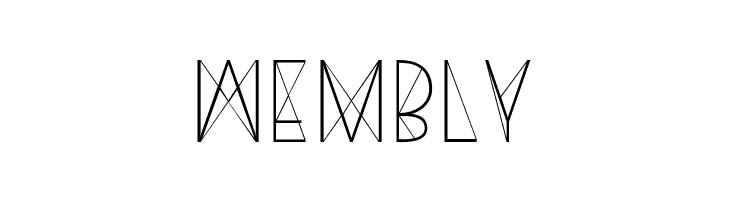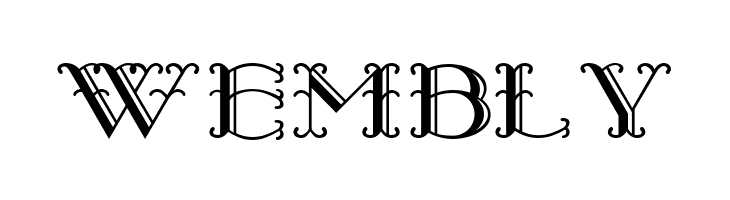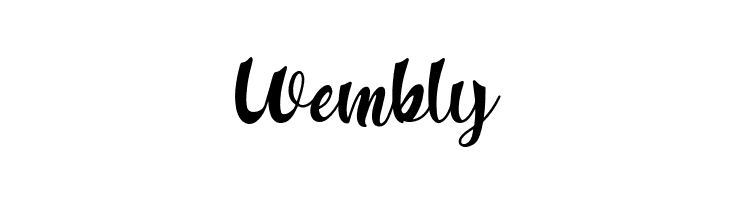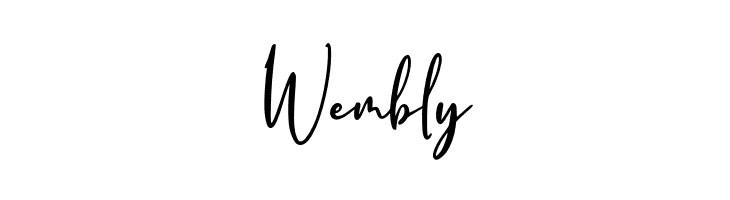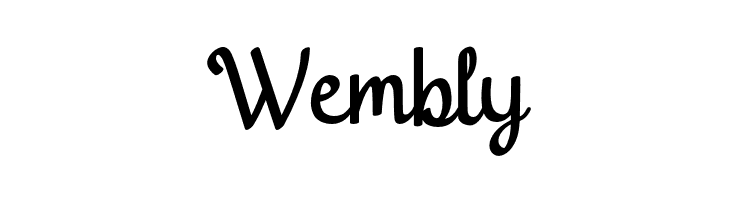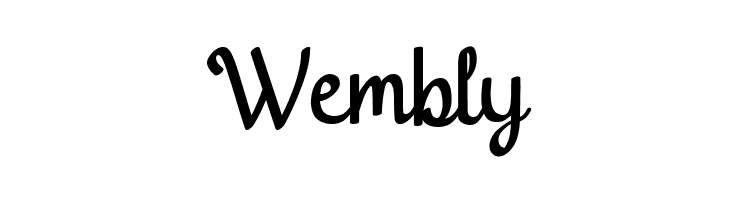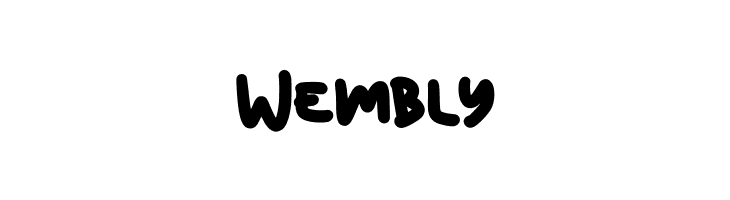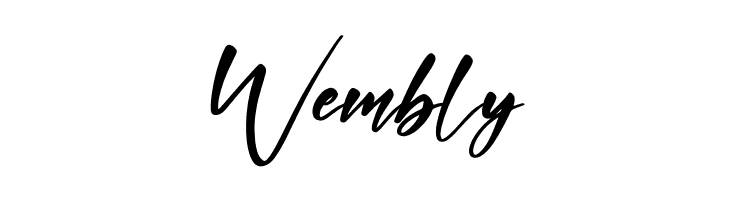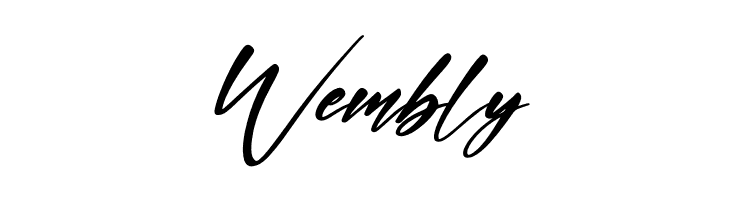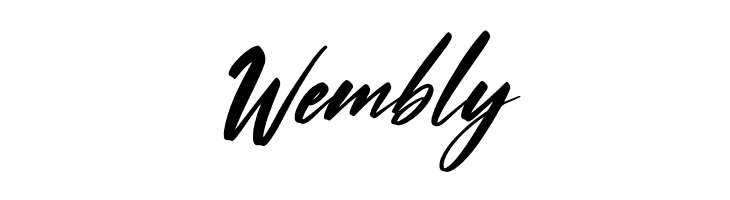
H Fonts
Hartford Font
An elegant, high-contrast script font with flowing, cursive letters.
Hartford Font
Burntilldead
A graceful script font with flowing, interconnected letters.
Hartin2 Regular Font
Font by David Rakowski
A distressed serif font with a grunge, textured appearance.
Harting Plain Font
Font by David Rakowski
A distressed, grunge-style font with a textured, vintage appearance.
Hartman & Richard Font
A bold, cursive handwritten font with dynamic and expressive letterforms.
Hartman & Richard Italic Font
A dynamic and elegant script font with a fluid, cursive style.
Hartman Smith Font
A dynamic, cursive script font with bold strokes and fluid connections.
Hartman Smith Italic Font
A flowing, cursive font with elegant, sweeping strokes and a sophisticated style.
Harton Dafont Regular Font
A playful and whimsical script font with smooth, flowing curves.
HartonDafont-Regular Font
A playful, handwritten script font with a whimsical style.
Hartone Softed Regular Font
A bold, modern font with thick strokes and tight spacing, perfect for impactful headlines.
Hartsinger Free Regular Font
A bold, playful font with rounded, hand-drawn letterforms.
Hartwig-Schrift Font
An ornate and bold font with intricate details and a historical script style.
Harty Demo Font
Burntilldead
A playful and bold decorative font with whimsical elements.
HartzVier Font
A dynamic, cursive script font with elegant flourishes and a handwritten feel.
HartzVier-Shadow Font
A bold, shadowed font with a three-dimensional effect.
haru biru Font
A modern, artistic font with parallel line design and geometric shapes.
HARU BIRU 2 Font
A playful, bold font with rounded, bubbly characters and a hand-drawn feel.
HARU_BIRU Font